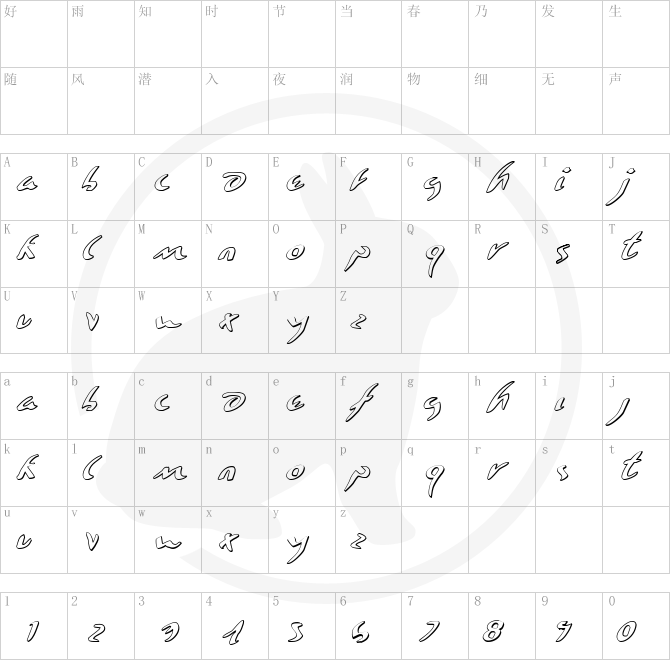
- Font Name:Eagleclaw 3D Italic
Eagleclaw-3D-Italic.ttf is a very beautiful artistic font, Eagleclaw-3D-Italic.ttf is widely used in the design and printing of various books and pictures,Eagleclaw-3D-Italic.ttf has a strong visual impact,Eagleclaw-3D-Italic.ttf is a commonly used font in newspapers, magazines and books, and is used in posters, e-commerce Poster design, store design, logo design, font design and other fields.Eagleclaw-3D-Italic.